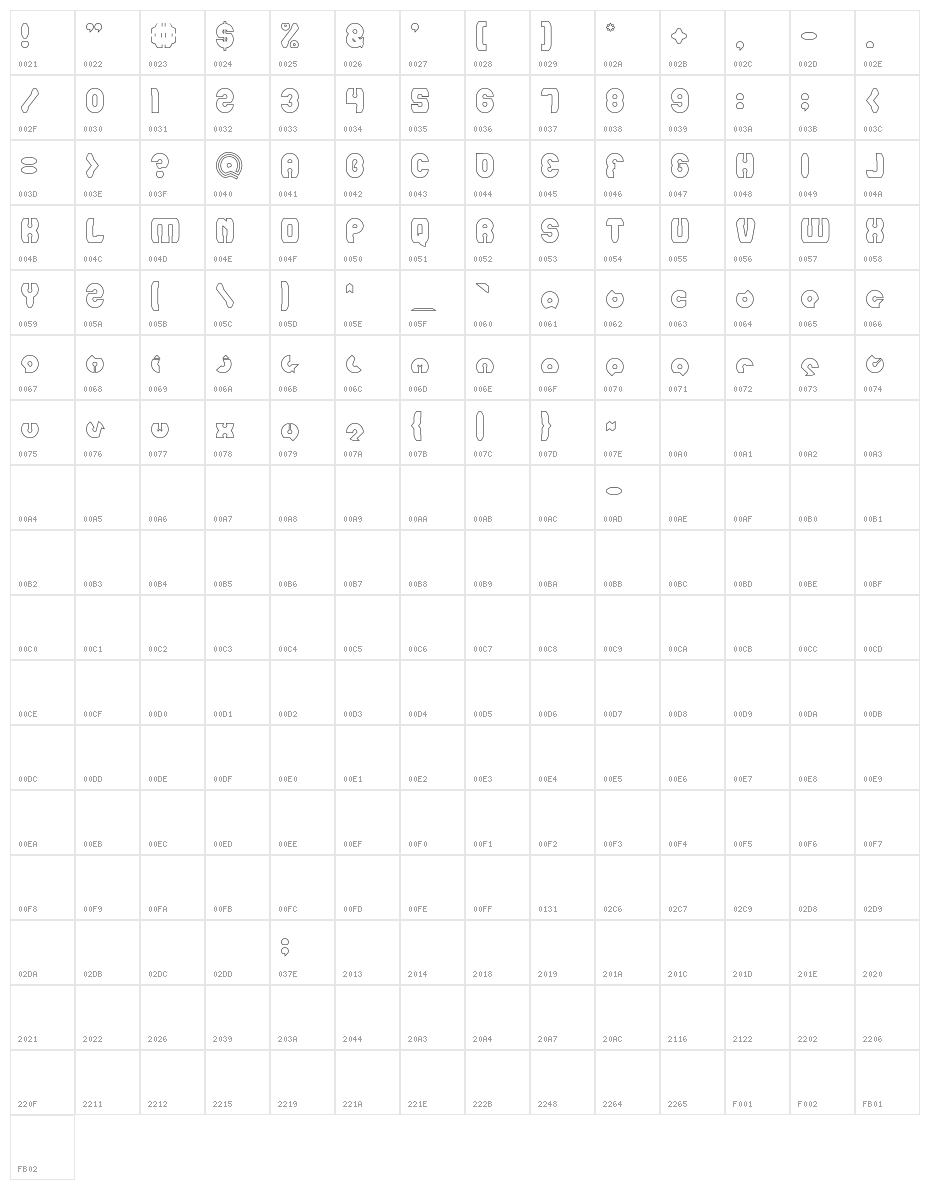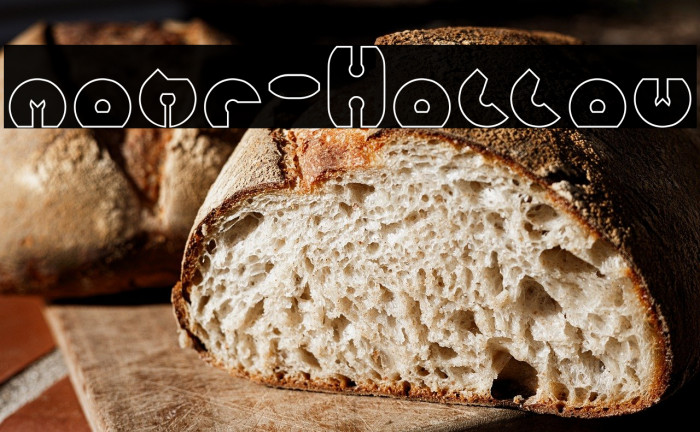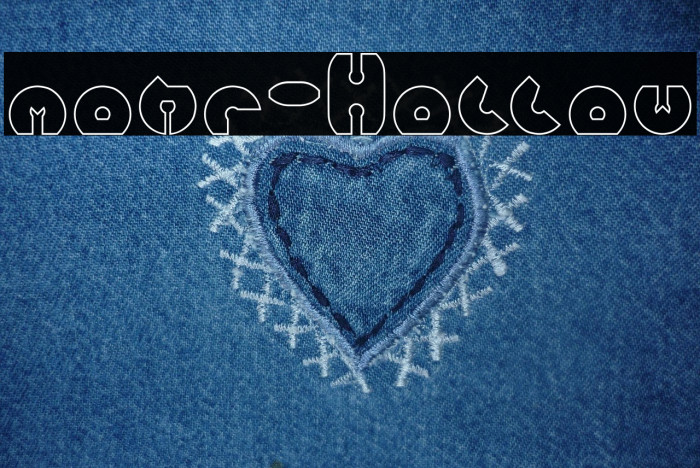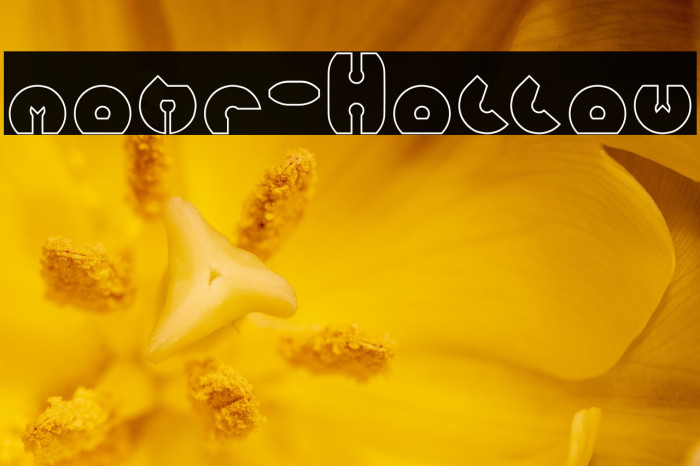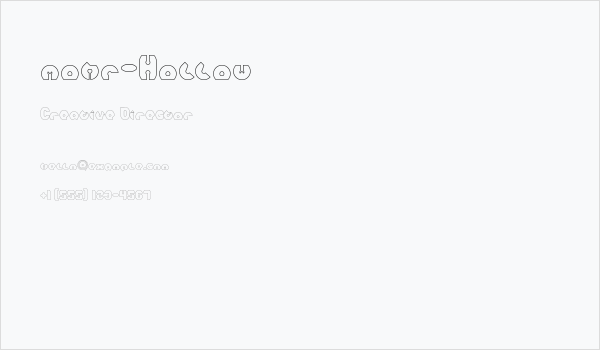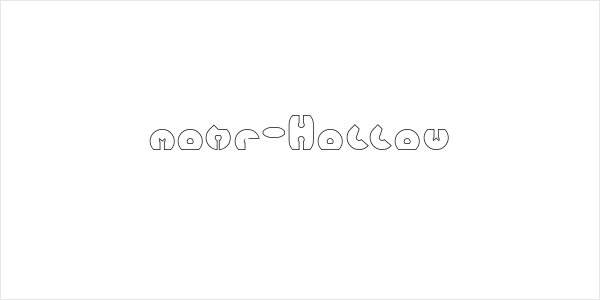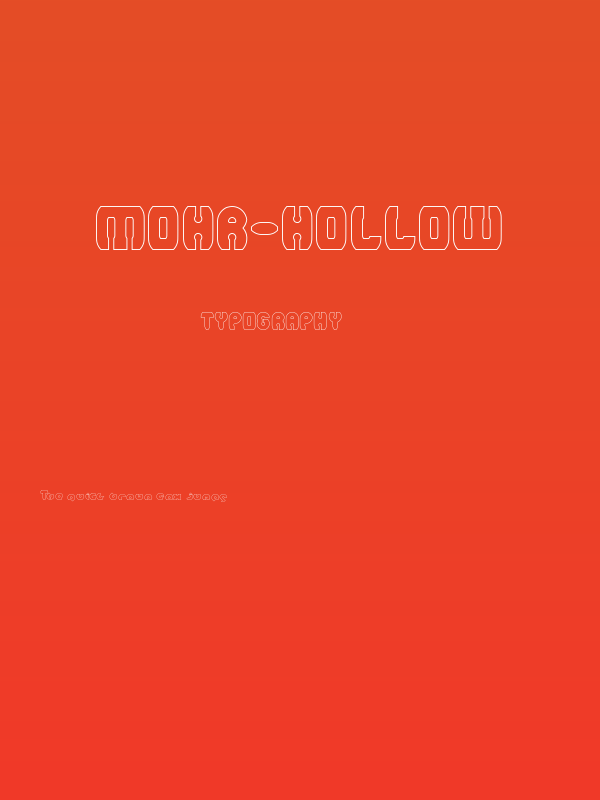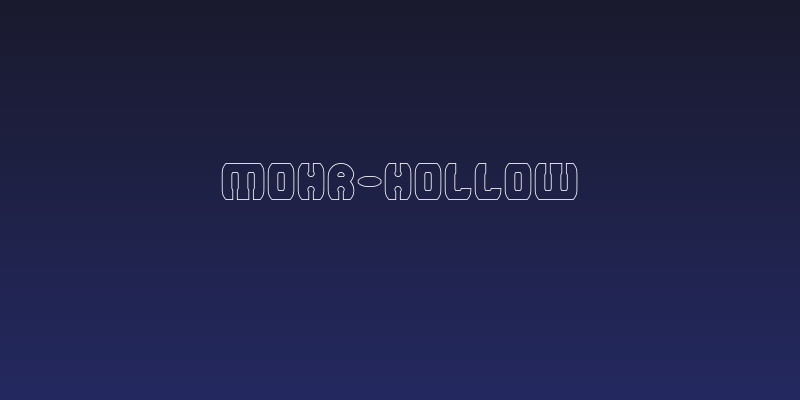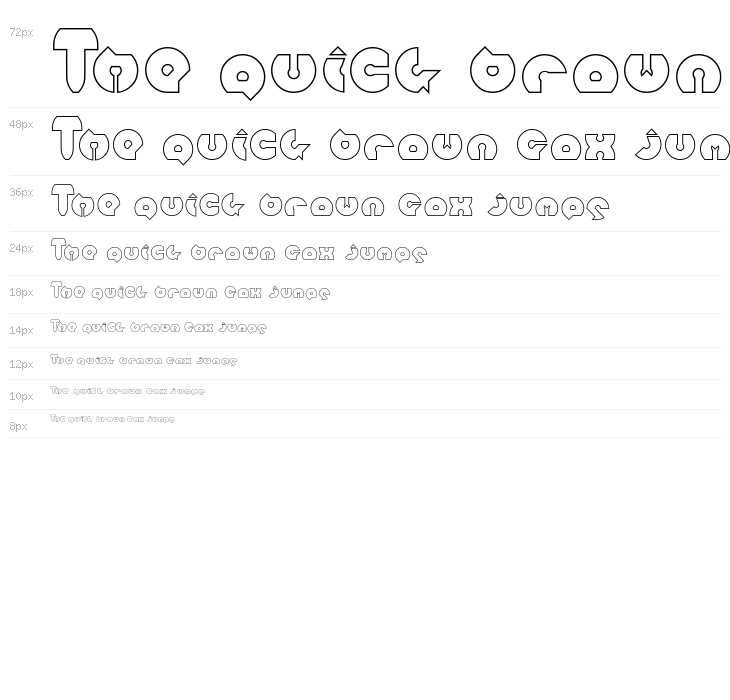
mohr-Hollow Font
mohr-Hollow Description
This font features a unique hollow design with a modern and geometric aesthetic. The characters are bold and have a distinct outline style, creating a futuristic and playful appearance. The uppercase letters are uniform in height, while the lowercase letters maintain a consistent style with rounded edges and minimalistic forms. Numbers and special characters follow the same design principles, ensuring a cohesive look across all elements. The font's hollow nature gives it a light and airy feel, making it suitable for creative and eye-catching designs.
| Proposed Projects | Ideal for futuristic branding, tech-themed posters, creative logos, and eye-catching headlines. |